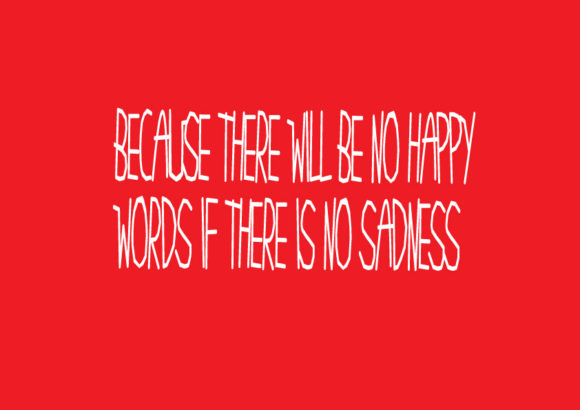
Kalimantan Font
About Kalimantan Font
Kalimantan is a quirky script font. It’s playfulness make it great for creative projects. This font is perfect for creating quotes, logos, T-shirts, mug, poster, web or just adding a handwritten touch to any project!